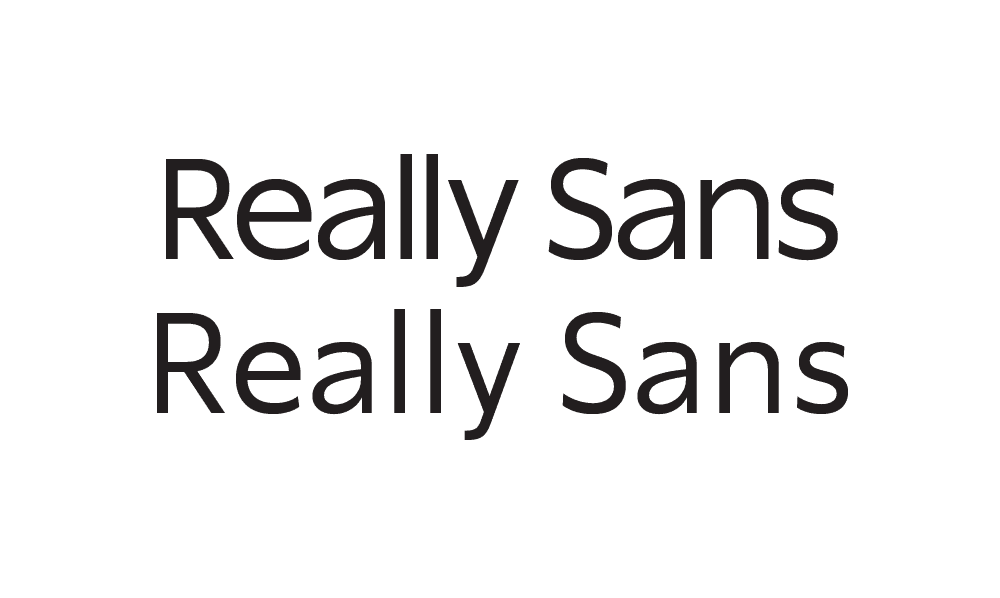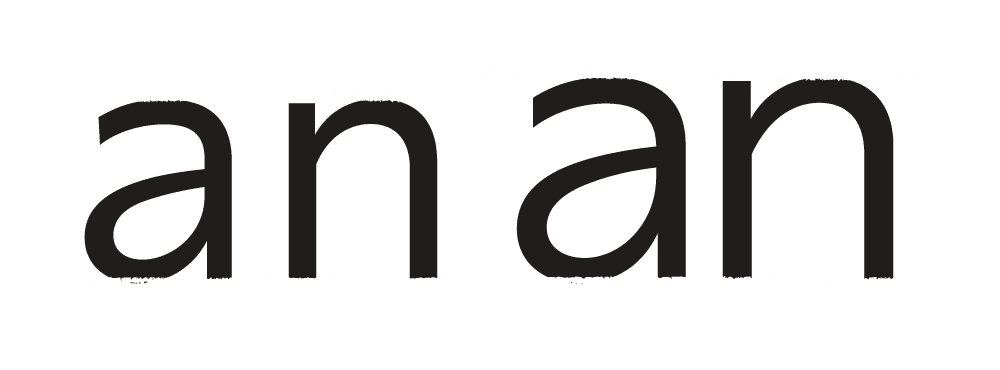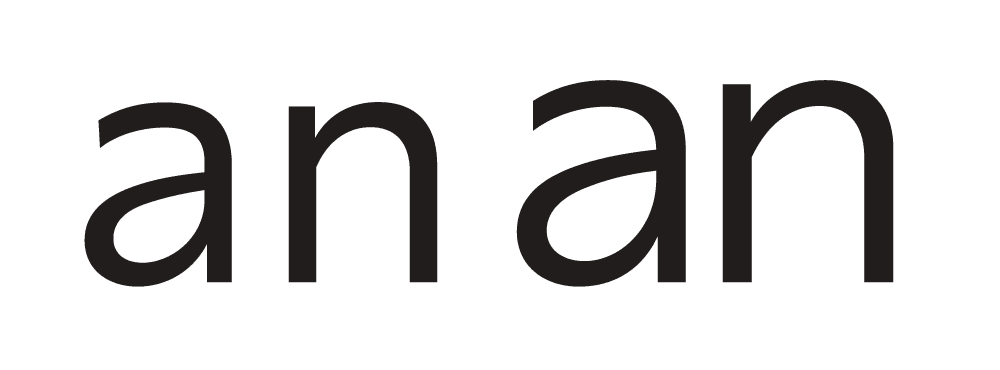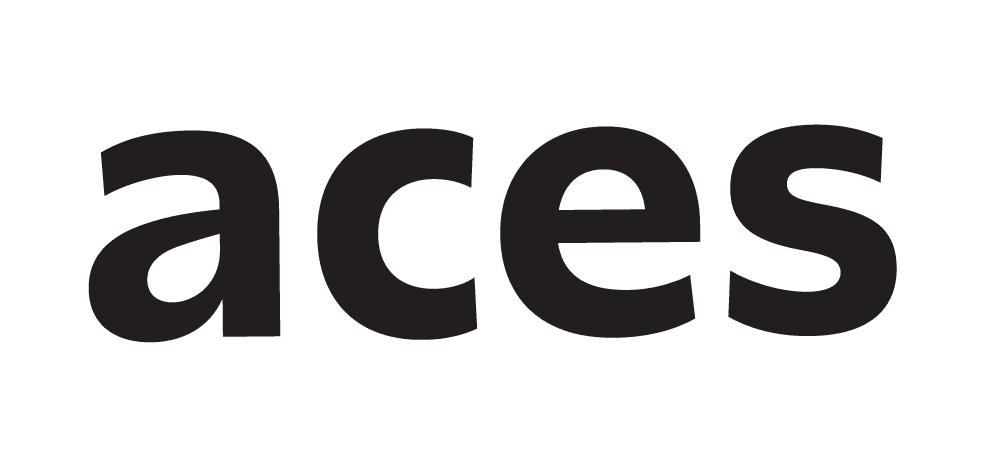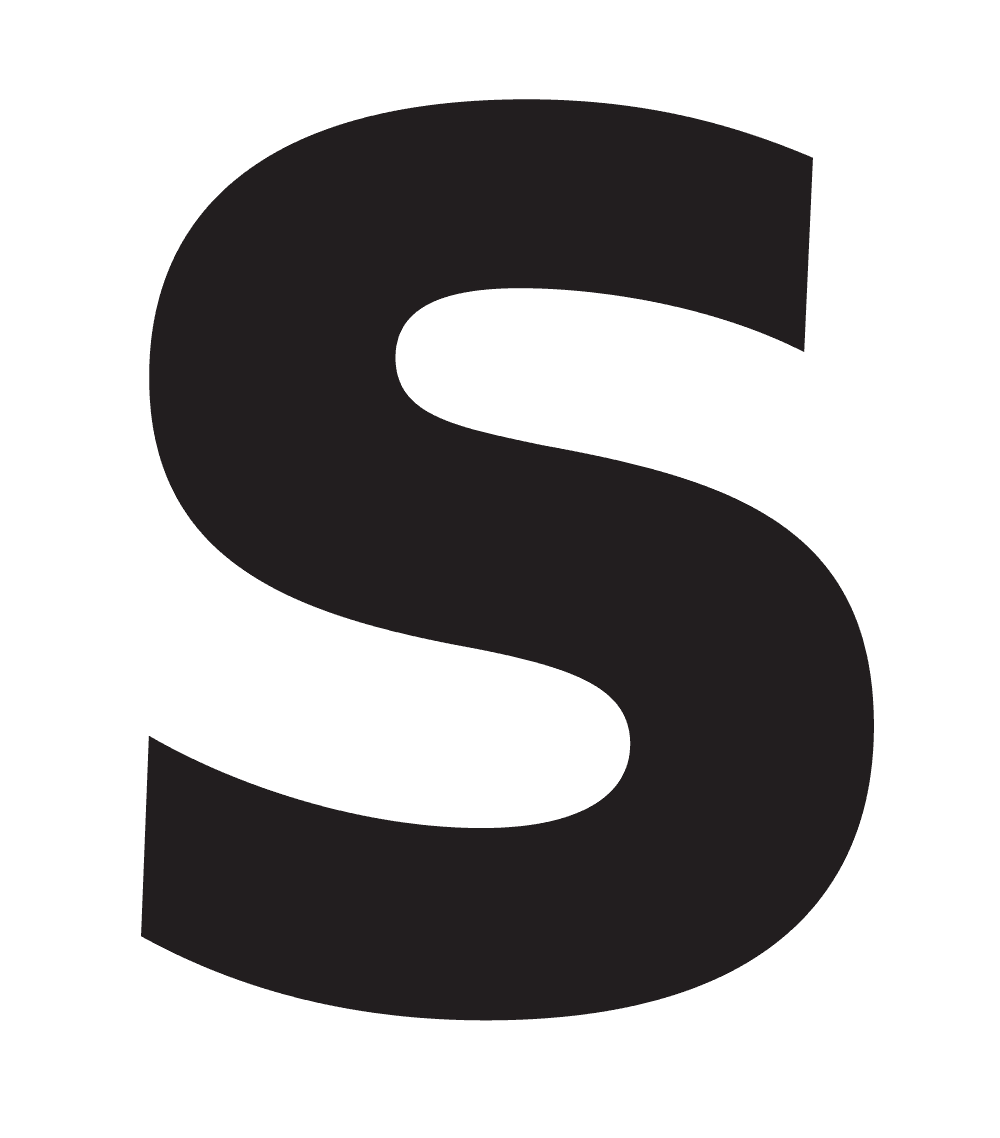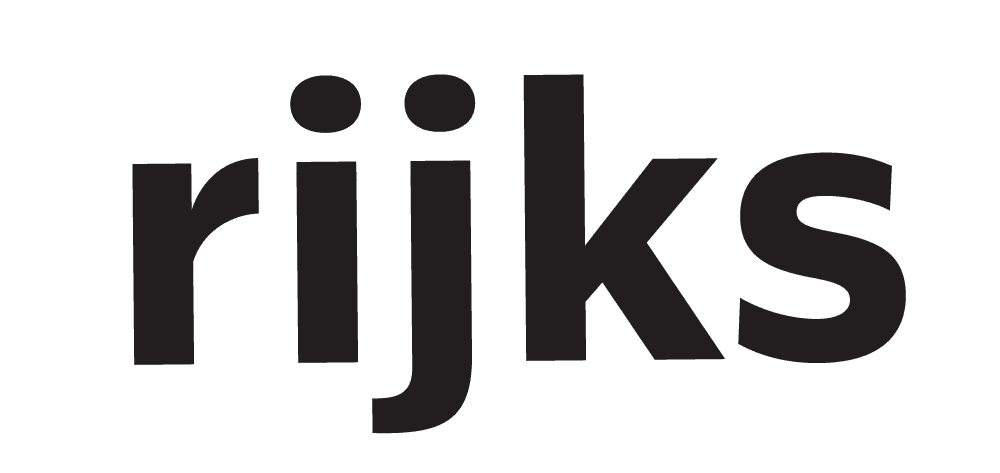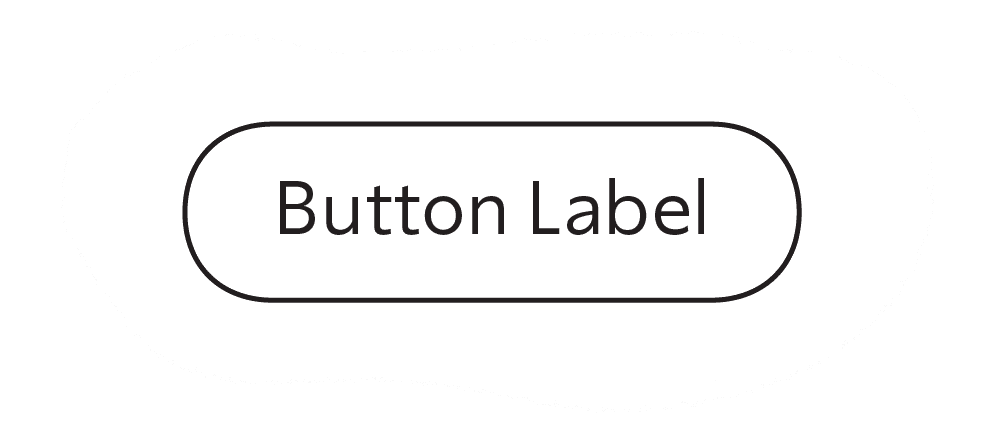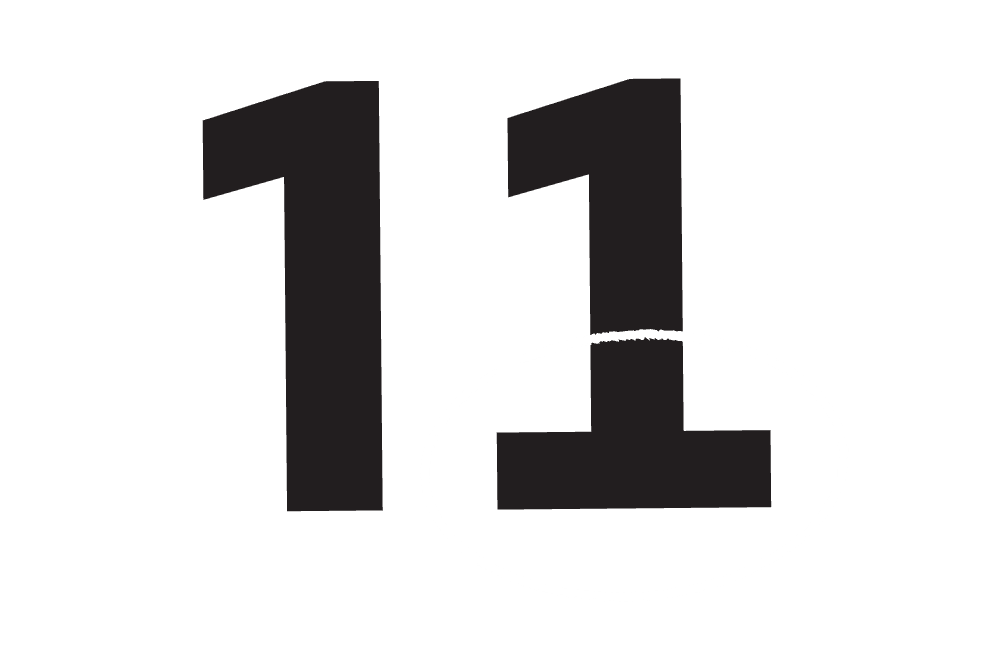
Really
Sans
VERSION No. 1.042
Designers like to use sans serifs at large sizes. Designers also like to use sans serifs at small sizes. We made you a type family that does both; we call it Really Sans.
Large & Small Optical Sizes
9 Large Weights
5 Small Weights
Matching Italics
28 Total Styles
Stylistic Alternates
Case Punctuation
Lining & Old Style Figures
Tabular Figures
Math & Currency
Dynamic Fractions
Circled Figures
Directional Arrows
Supports 200+ Languages
Features
Large & Small Optical Sizes
Alternate Lowercase "a"
Alternate Ampersand
Decorative Quotes
Circled Figures
Oldstyle & Lining Figures
Tabular Figures & Math
Case Punctuation
Alternate Punctuation Style
Directional Arrows
Dynamic Fractions
Roman & Italic Styles